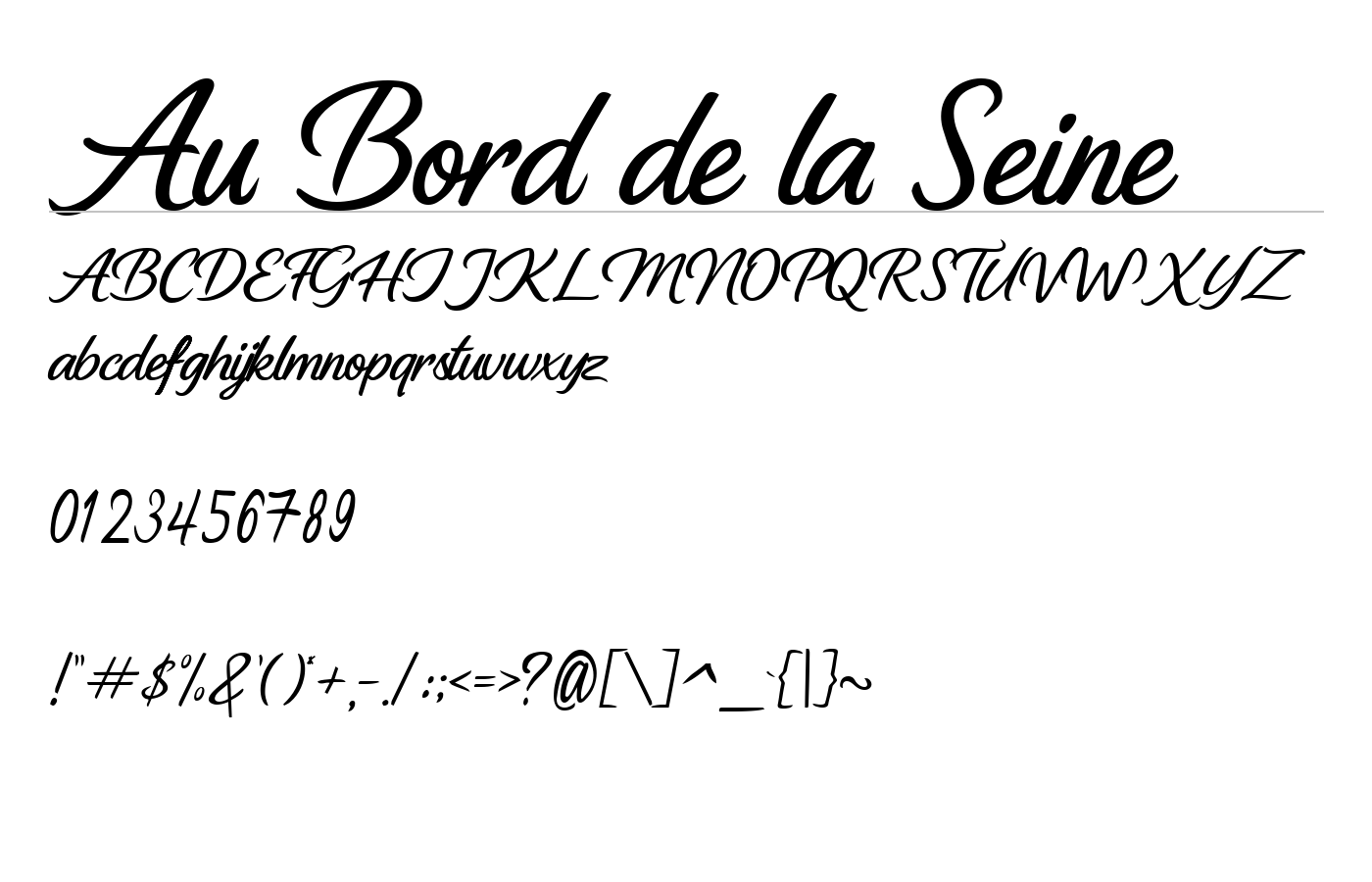
Au Bord de la Seine is an elegant script font with a smooth, flowing style that captures the charm of classic handwriting. Its slender strokes and slightly condensed letterforms give it a refined, sophisticated look, making it perfect for invitations, luxury branding, and any project needing a touch of graceful, vintage appeal. This font works beautifully in headlines or decorative text where a delicate, artistic flair is desired.
Au Bord de la Seine Font
About Au Bord de la Seine Font